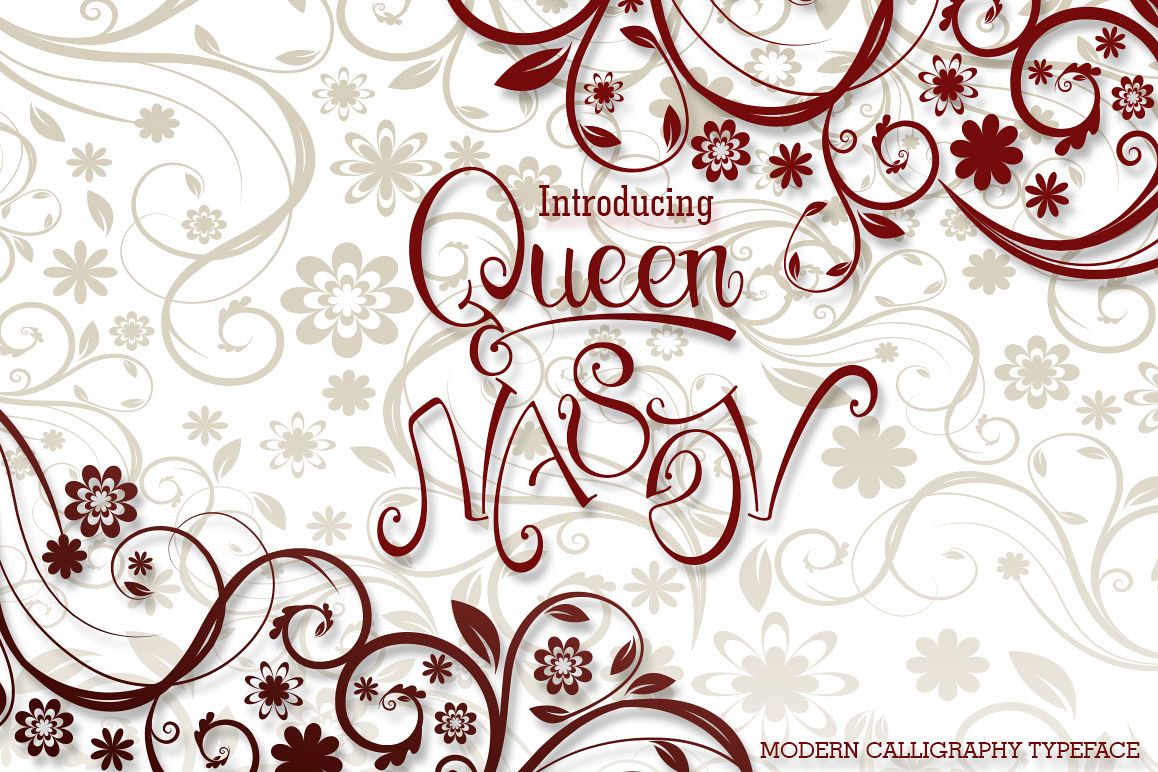
Queen NASOV
Queen NASOV Script is a stylish calligraphy font that features a varying baseline, smooth line, classic and elegant touch. Can be used for various purposes.such as headings, signature, logos, wedding invitation, t-shirt, letterhead, signage, lable, news, posters, badges etc.
The Features of this fonts is:
Standart & stylistic ligatures
Stylistic Alternates
Swash
Languages supported: Breton, Catalan, Czech, Danish, Estonian,French, German, Hungarian, Icelandic, Italian, Romanian, Scottish Gaelic, Slovak, Latvian, Lithuanian, Norwegian, English, Finnish, Polish, Portuguese, Slovenian, Spanish, Swedish, Turkish, Welsh. Basically, all european languages that are based on latin alphabet.